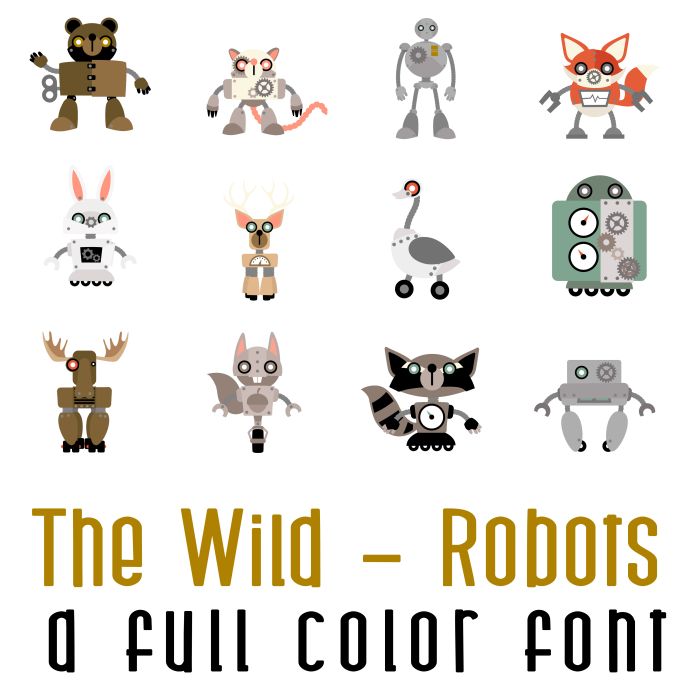
This fun full color font features 26 robots and aniaml robots perfect for cards, crafts, gifts, parties, planner stickers, classrooms, scrap book pages and more!